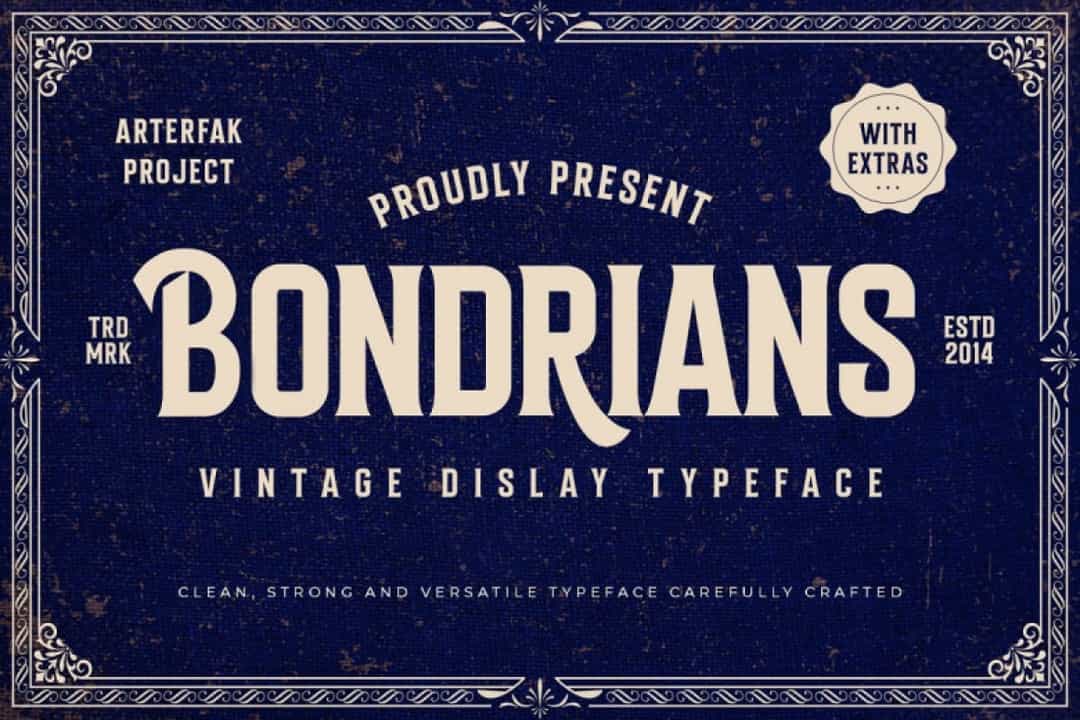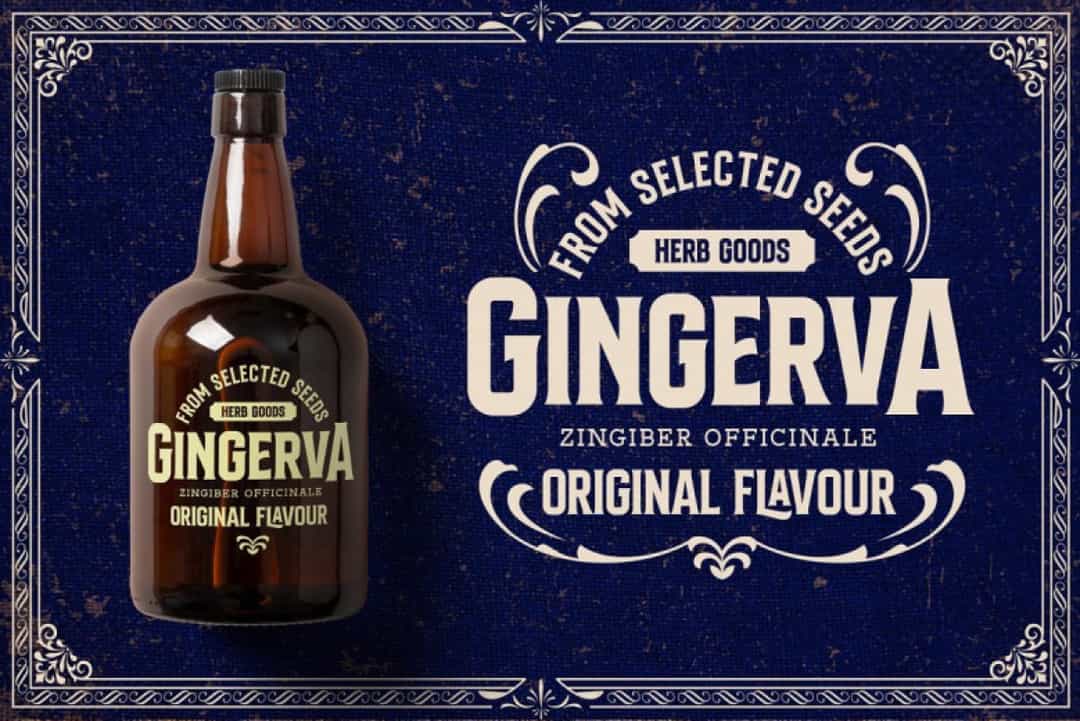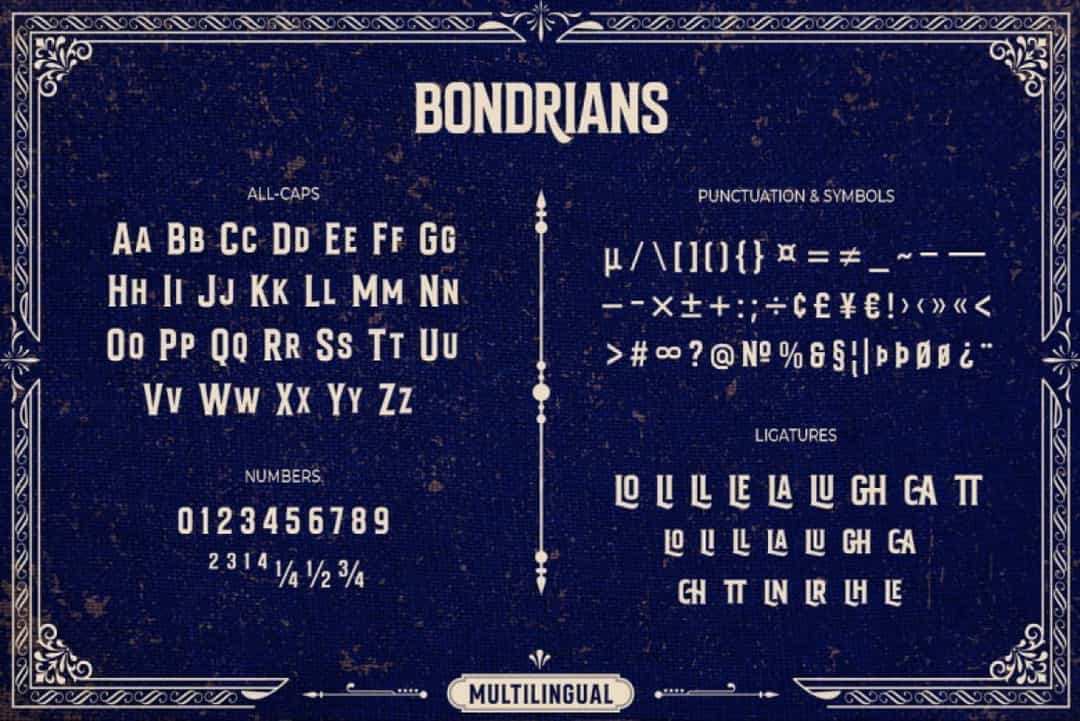
Bondrians is an all-caps display font reminiscent of vintage labels and old school logos, perfect for display purposes. Its thick, heavy-weight letterform is perfect for eye-catching display. Bondrians is also versatile enough to suit many retro, vintage or old school styles as well as Victorian ones.